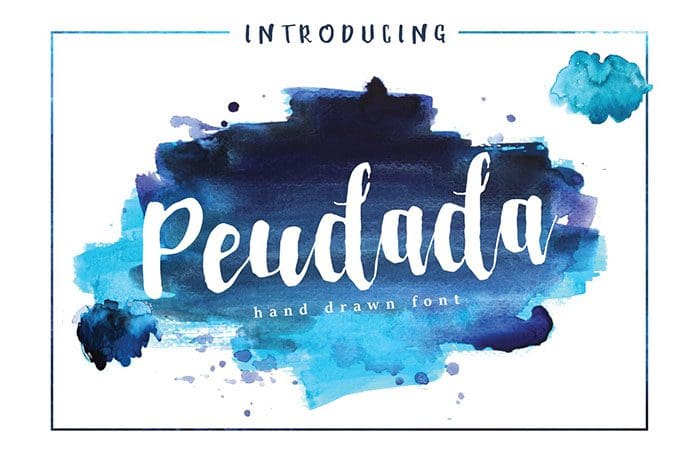
Free Peudada Brush Font
Peudada Brush Font
Free Peudada is a wonderfully crafted hand brush font. This script looks wonderful in trendy designs, and is also extremely well suited to classic and modern styles. Designed this font by Mas Anis. You can also search more freeĀ Brush Fonts. Thanks!